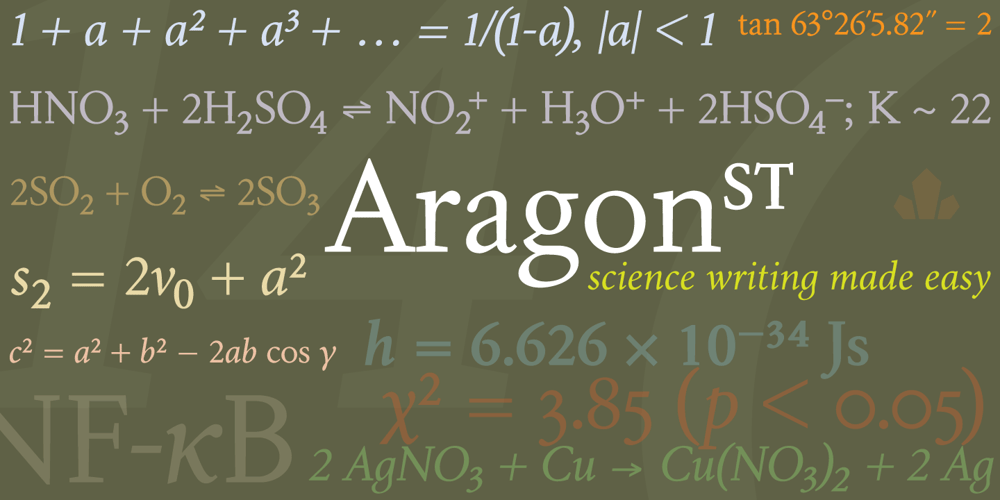
Aragon ST Font Family was designed by Hans van Maanen, Patrick Griffin and published by Canada Type. Aragon ST contains 4 styles and family package options. Aragon ST is a special version of Hans van Maanen’s Aragon family. It was developed for science writing, and it serves as the very first introduction of SciType, an innovative new way of building fonts specifically for typesetting science text. For more information about SciType, please consult the SciType FAQ PDF in the Gallery section. The Aragon design is a remodelling of the classic mid-1500s Garamond forms through a modern lens. It is a text workhorse that performs very well in a variety of sizes, from footnotes and legal copy to lengthy, immersive-reading body sets. Its efficient and legibility-asserting traits are wedge serifs and uniquely tapered stems that slightly shift the weight stress to the top half of the forms while maintaining the clarity and synergy of the counterspace’s sequence. Aragon ST takes all that a step further for science writers. For details about the functionality of Aragon ST, please consult the Aragon ST Access Chart PDF in the Gallery section.